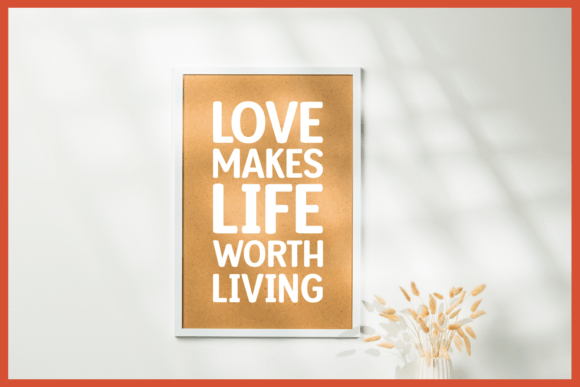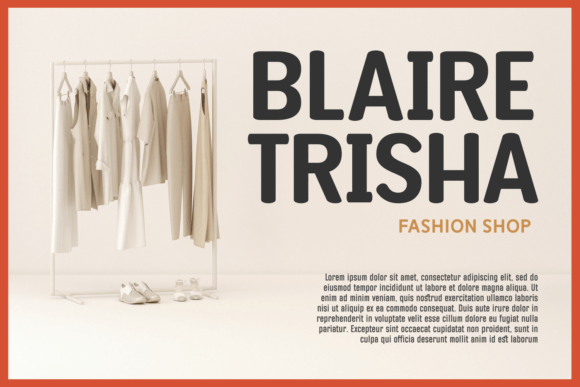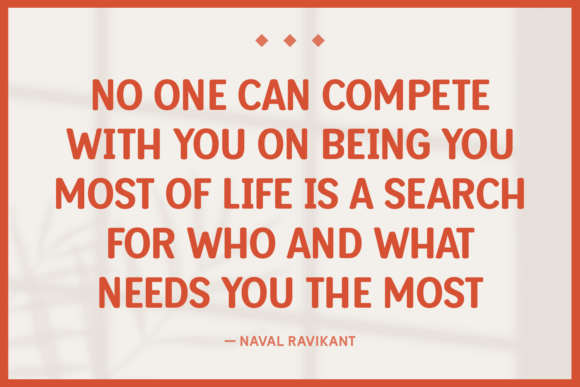
Introduction to Giving Hopes Font
As a designer, have you ever stumbled upon a font that instantly elevates your creative project and makes every message feel more uplifting? That’s exactly what happened to me when I discovered the Giving Hopes Font. Its modern sans-serif design radiates warmth and positivity, making it the perfect addition to any branding, social media, or inspirational design.
With its clean lines and smooth curves, Giving Hopes Font offers a contemporary yet approachable feel that’s sure to resonate with your audience. Whether you’re working on a free download or a high-quality design resource, this font is a valuable asset that will take your project to the next level. Plus, its transparent background makes it easy to use on any design platform.
Key Features of Giving Hopes Font
- High-quality, professional design for creative projects, ideal for use in logos, branding, and marketing materials.
- Comes with transparent background, allowing for seamless integration into various design elements and backgrounds.
- Features a clean and modern aesthetic, making it suitable for a wide range of creative projects and industries.
- Includes a range of weights and styles, allowing for flexibility and customization to suit different design needs.
Honest Review: Giving Hopes Font
As a designer, I’m always on the lookout for high-quality design resources to elevate my creative projects. The Giving Hopes Font caught my eye, and I decided to give it a try. Here’s my honest review.
- ✨ The Giving Hopes Font features a beautiful, hand-drawn design with a transparent background, making it perfect for creative projects that require a touch of elegance.
- ✨ The font is highly customizable, allowing me to adjust the size, color, and style to suit my design needs.
- ⚠️ The font’s complexity may make it difficult to use for large-scale designs or commercial projects.
Overall, I’m impressed with the Giving Hopes Font’s unique design and versatility. While it may have some limitations, it’s a valuable addition to any designer’s toolkit. If you’re looking for a high-quality, free design resource for your creative project, the Giving Hopes Font is definitely worth checking out.
The Giving Hopes Font is ideal for:
- Business cards and marketing materials.
- Personal projects and creative endeavors.